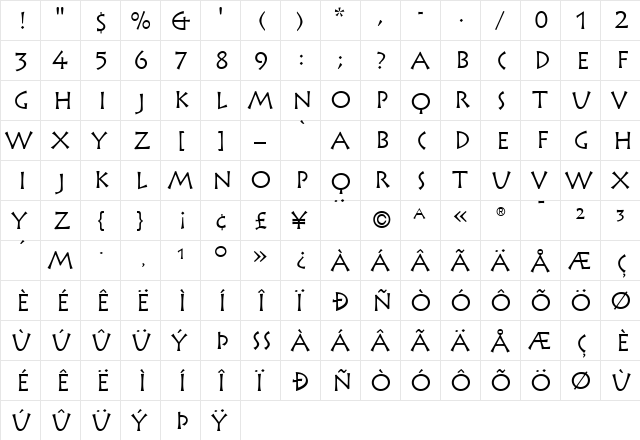
QK Empire Regular
Design Context for QK Empire Typeface
QK Empire offers clean, dependable letterforms without strong stylistic allegiance, making it a practical choice for designers who need flexibility.
Pro Tip: Use QK Empire in both headline and body roles to test its range before committing to a single application.